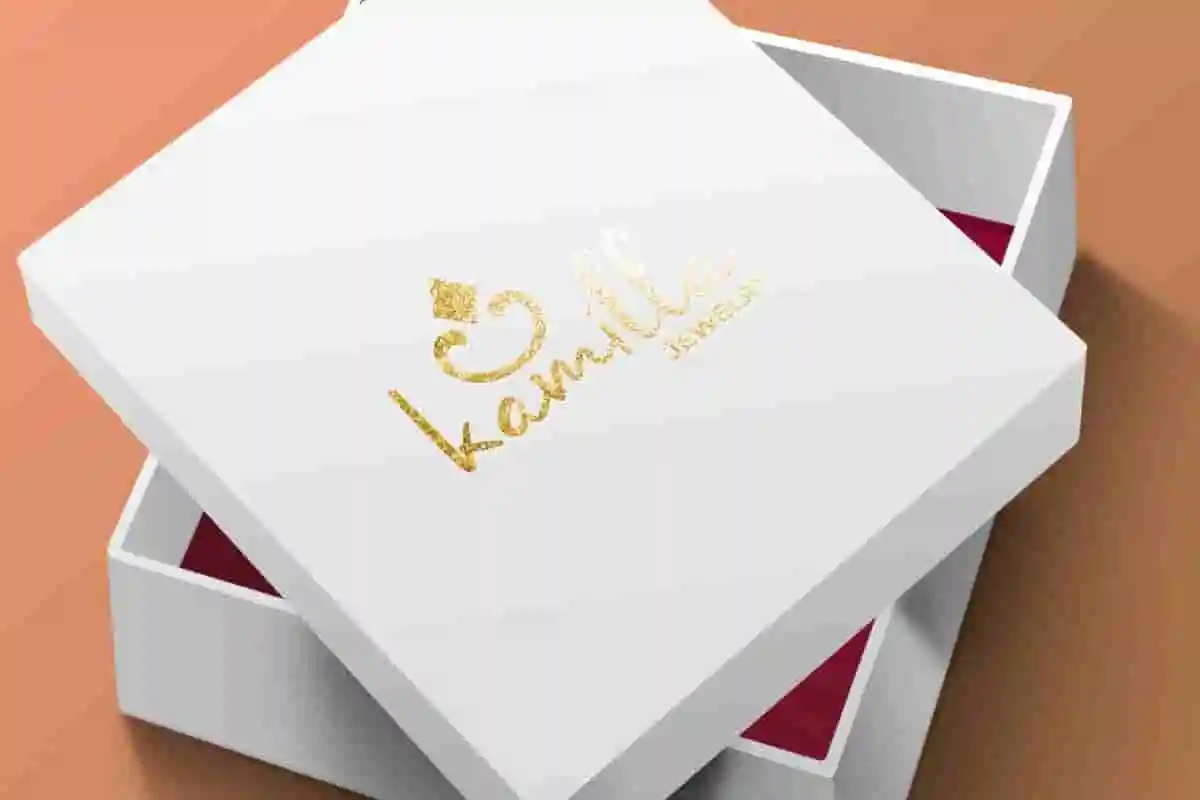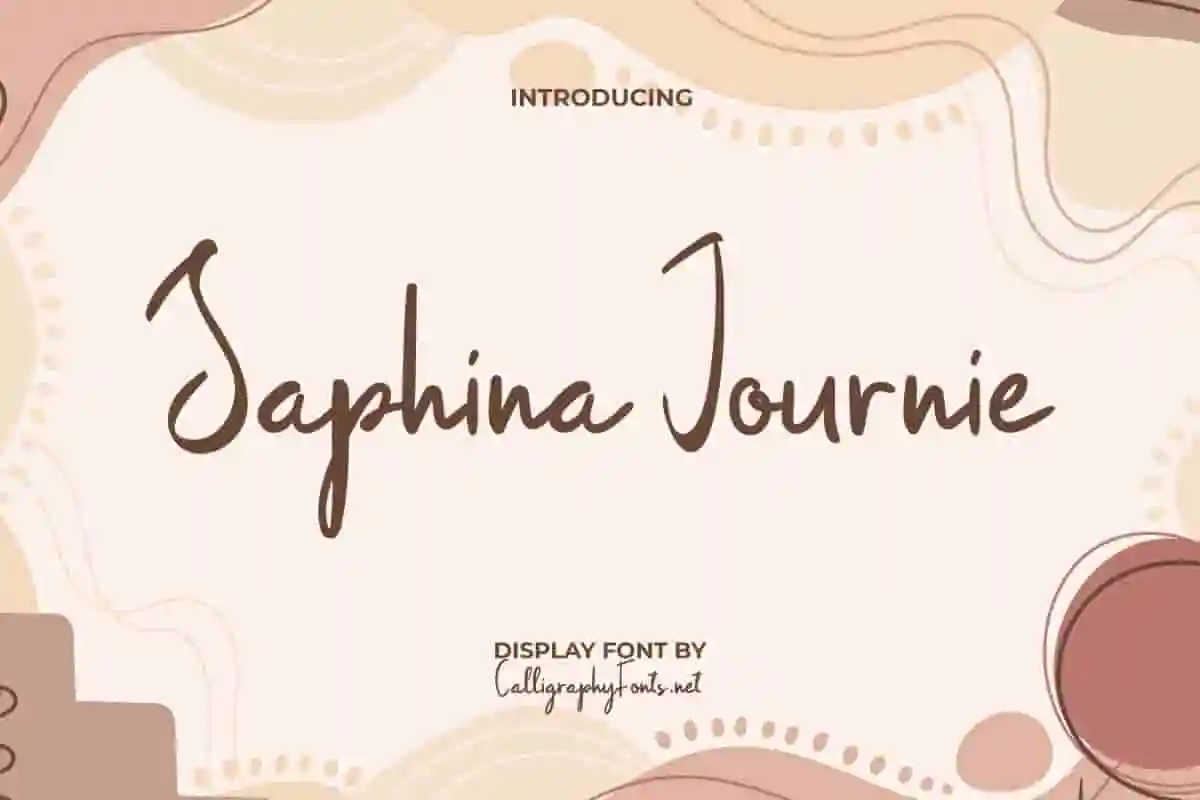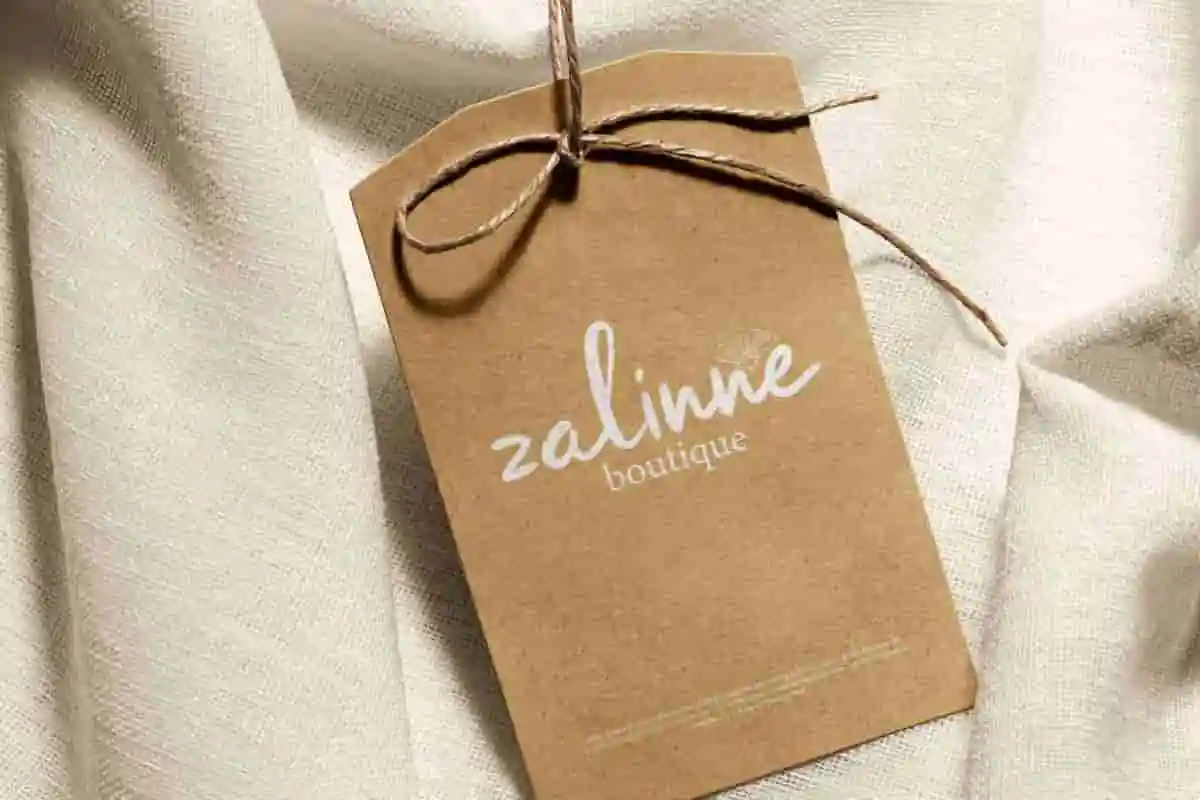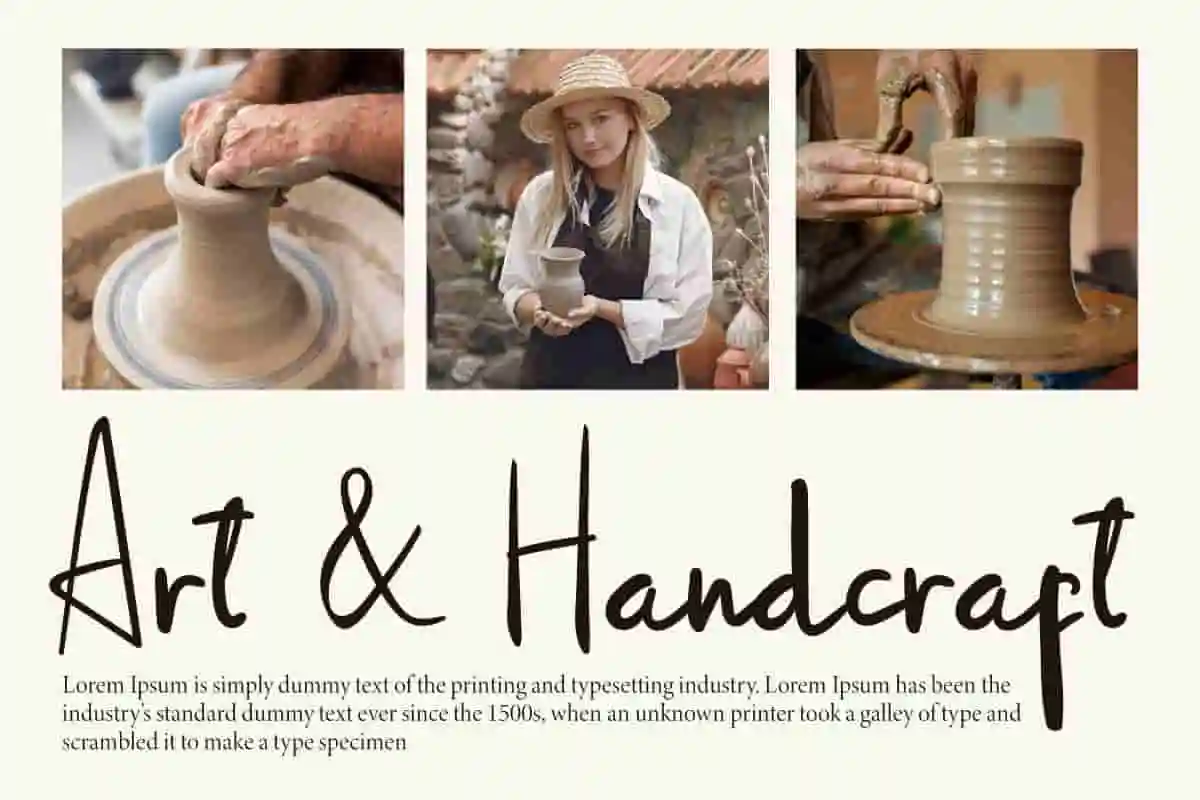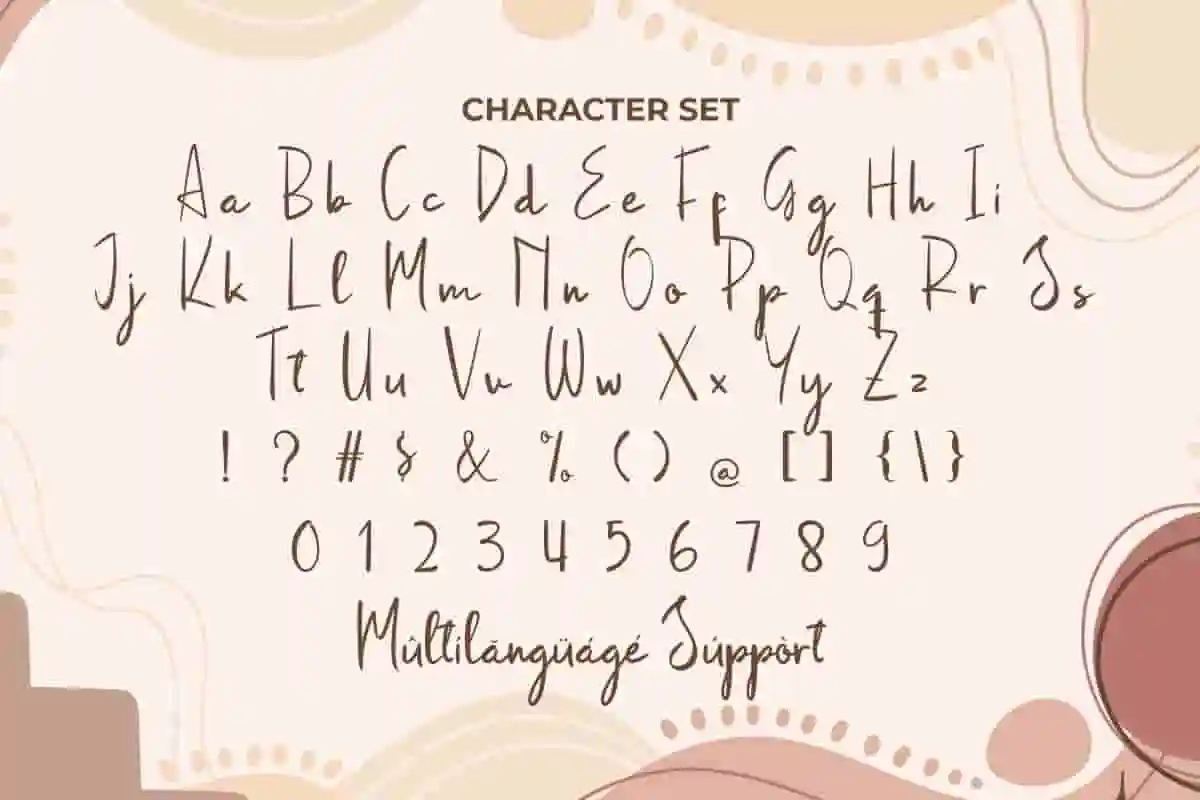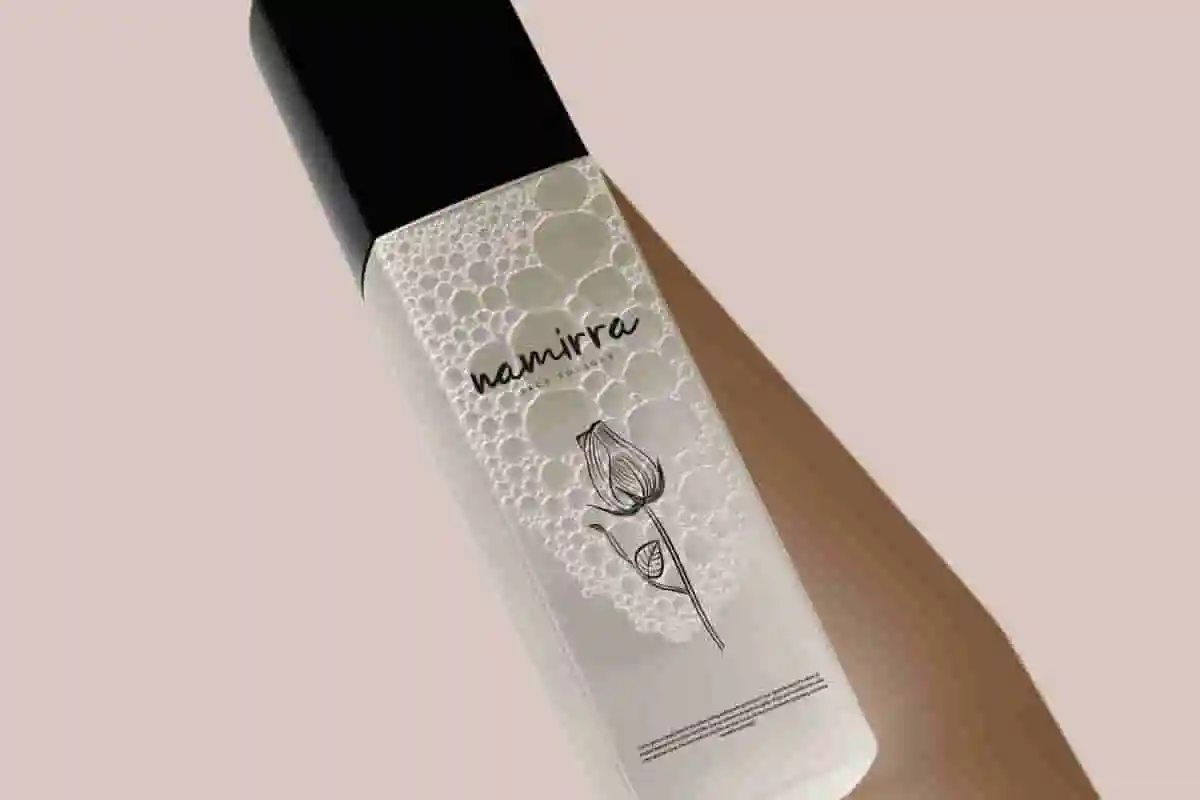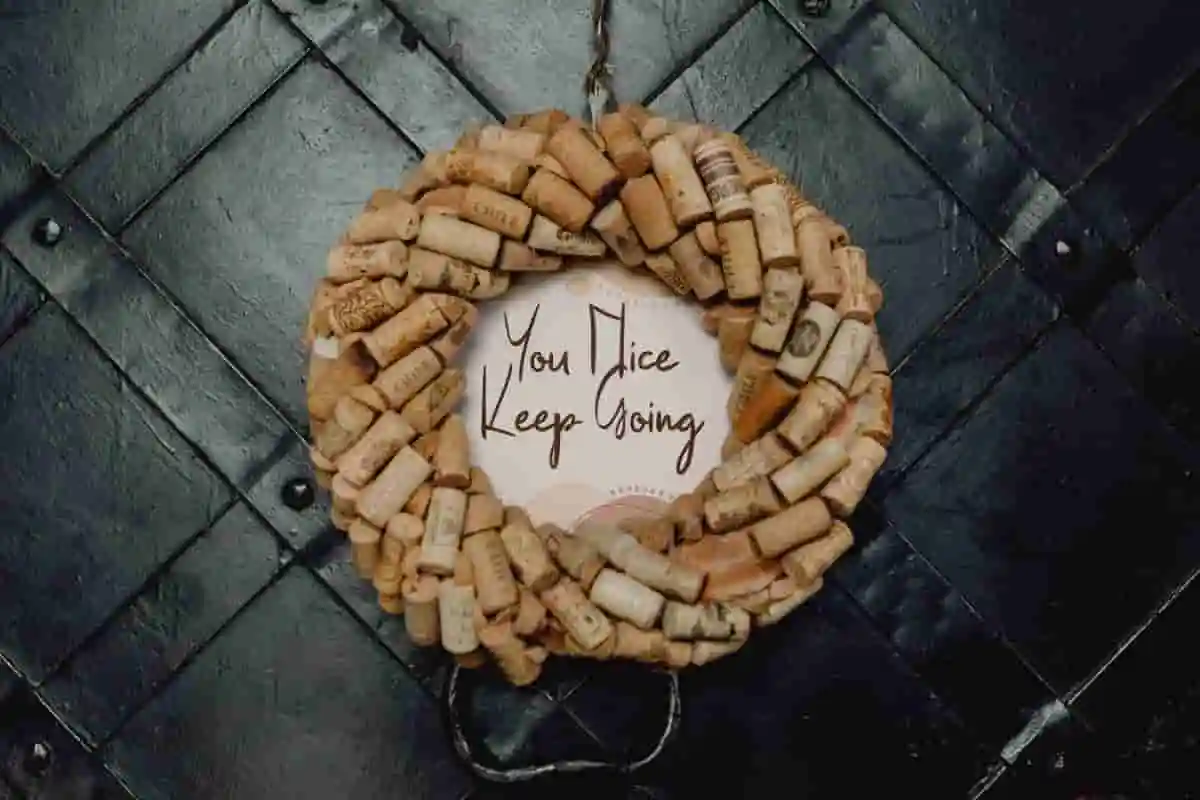
Saphina Journie Display Font
Saphina Journie Font is a charming aesthetic display font with a touch of handwriting. It is very suitable for use beautician, box design, craft, heading, jewelry, label tag, logo, stationery, etc.
Saphina Journie Font is a lively and organic casual handwritten font, which will make your projects look more natural and handcrafted. You can use this font for any purposes such as accessories and merchandise, boutique, creative content, cosmetic, fashion, florist, graphic design, handicraft, jewelry, photography, printing, publishing, skincare, and more.
Introducing Saphina Journie Display Font, a beautifully crafted typeface that combines elegance with versatility. Perfect for designers seeking a stylish font that elevates branding, invitations, social media posts, and editorial designs with a unique flair. Whether you’re creating wedding invitations, lifestyle branding, quotes, logos, or packaging, Saphina Journie offers a graceful and modern touch to your typography that instantly captivates.
Meet Saphina Journie Display Font, the perfect blend of elegance and modern style. Designed to add a graceful and sophisticated touch, this font is ideal for elevating your branding, invitations, social media posts, packaging, and more. Whether you’re working on wedding designs, fashion branding, lifestyle blogs, or editorial layouts, Saphina Journie delivers a smooth and refined look that captures attention and tells your story with charm.
Looking for a font that combines elegance, style, and versatility? Meet Saphina Journie Display Font, the perfect choice for designers who want to create beautiful, memorable projects with a touch of sophistication. Whether you’re designing wedding invitations, branding, social media posts, packaging, or editorial layouts, Saphina Journie adds a graceful and polished finish.
• Elegant, stylish display
Saphina Journie Font is ideal for a variety of creative projects because its versatility balanced with simple yet elegant letter characteristics gives it a natural flow that adds a personal touch and creates a warm and inviting feel. You can use this font for any purposes such as blogs, brand logo, greeting cards, headers, headline, label tag, mockup, packaging, poster, quotes, sticker, template, title, watermark, website, and more.